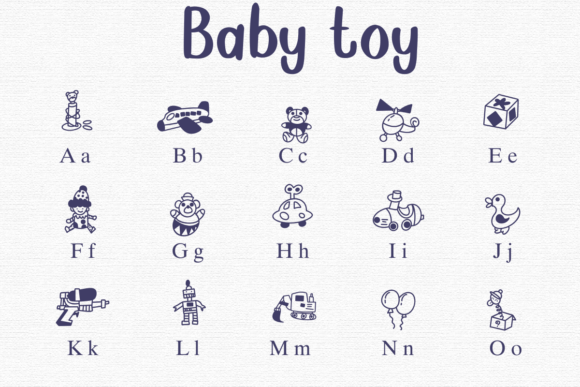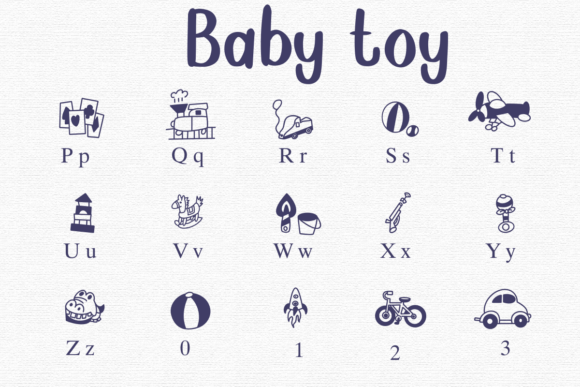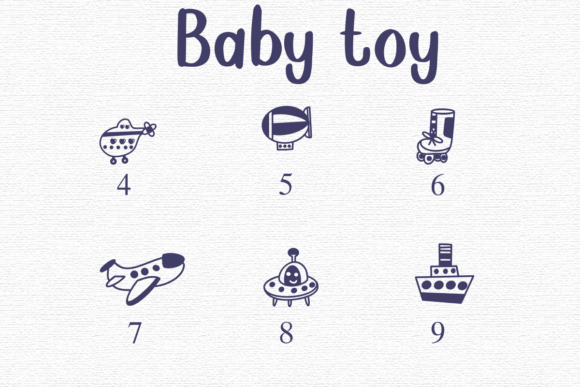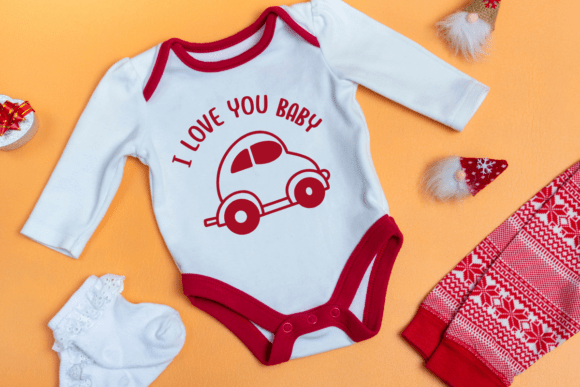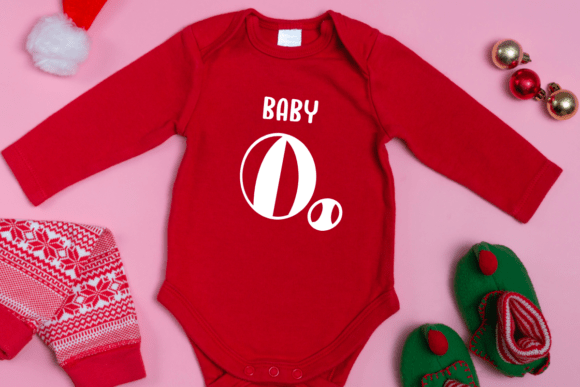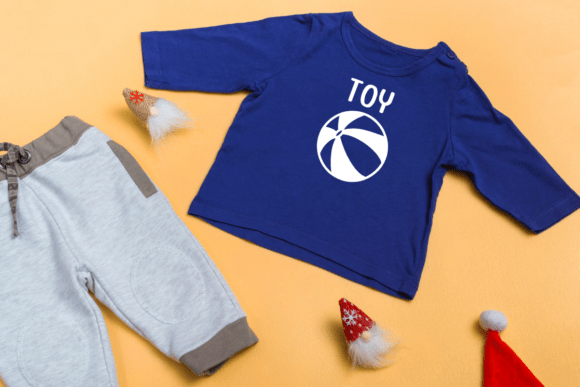
Baby Toy Font: Add a Playful Touch to Your Designs
Are you looking for a font that can add a fun and whimsical touch to your designs? Look no further than the Baby Toy Font. This charming dingbat font is packed with cute toy illustrations, from teddy bears and rockets to building blocks and rubber ducks. Perfect for children’s designs, nursery decorations, playful branding, and educational materials, the Baby Toy Font is a must-have for designers and crafters.
What is Baby Toy Font?
Baby Toy Font is a unique dingbat font that features a collection of adorable toy illustrations. The font includes a wide range of toys, from classic teddy bears and dolls to modern playthings like smartphones and tablets. Each character in the font is carefully designed to be cute and playful, making it perfect for designs that require a touch of whimsy.
Features of Baby Toy Font
- Wide range of toy illustrations: The Baby Toy Font includes a vast collection of toy illustrations, ensuring that you can find the perfect image for your design.
- Cute and playful designs: Each character in the font is designed to be adorable and fun, adding a playful touch to your designs.
- Perfect for children’s designs: The font is ideal for designs aimed at children, including nursery decorations, children’s clothing, and educational materials.
Uses of Baby Toy Font
The Baby Toy Font is versatile and can be used in a variety of designs, including:
- Children’s designs: The font is perfect for designing children’s clothing, toys, and accessories.
- Nursery decorations: Add a playful touch to nursery walls, furniture, and decor with the Baby Toy Font.
- Playful branding: Use the font to create fun and engaging brand identities for children’s products and services.
- Educational materials: The font is ideal for designing educational materials, such as worksheets, activity sheets, and textbooks.
Benefits of Using Baby Toy Font
Using the Baby Toy Font in your designs offers several benefits, including:
- Increased engagement: The font’s playful and whimsical nature can help increase engagement and interaction with your designs.
- Unique and creative designs: The Baby Toy Font allows you to create unique and creative designs that stand out from the crowd.
- Time-saving: The font’s extensive collection of toy illustrations saves you time and effort in finding and creating your own images.
Tips for Using Baby Toy Font
Here are some tips for using the Baby Toy Font effectively in your designs:
- Mix and match characters: Combine different characters to create unique and interesting designs.
- Experiment with colors and textures: Add depth and interest to your designs by experimenting with different colors and textures.
- Keep it simple: Don’t overcomplicate your designs – sometimes, simple and clean designs are the most effective.
The Baby Toy Font is a versatile and fun dingbat font that can add a playful touch to your designs. With its wide range of toy illustrations, cute and playful designs, and ease of use, it’s perfect for designers and crafters looking to create engaging and creative designs for children. Whether you’re designing children’s clothing, nursery decorations, or educational materials, the Baby Toy Font is a must-have font that can help you create unique and imaginative designs.